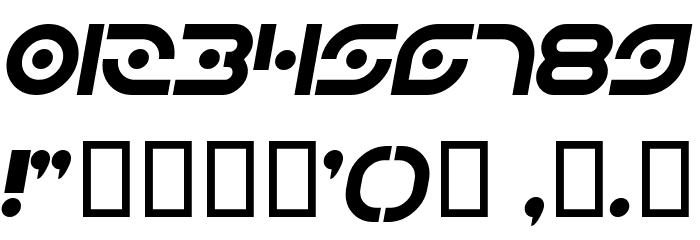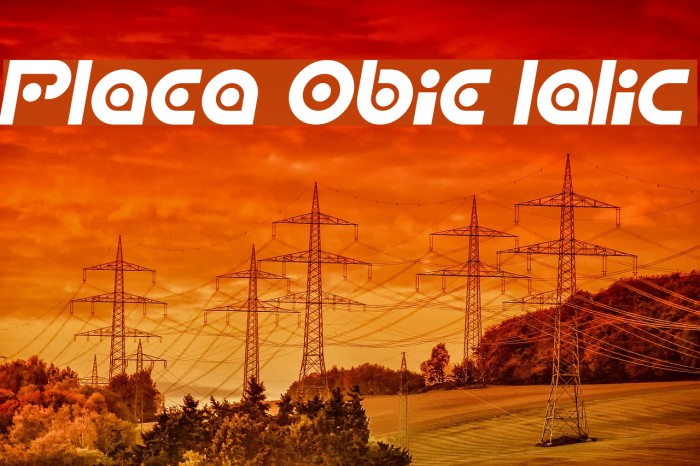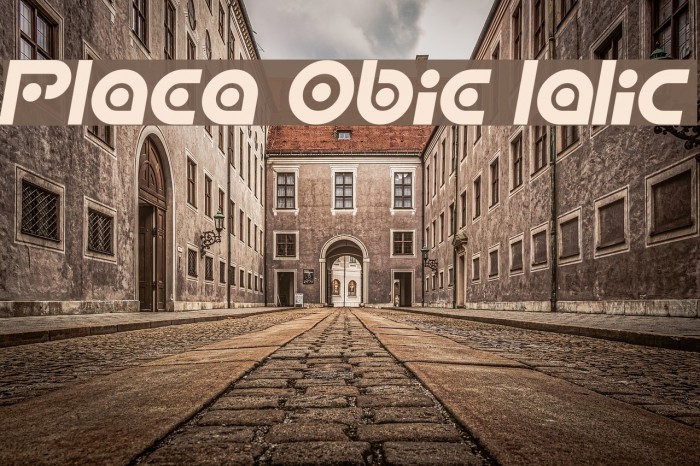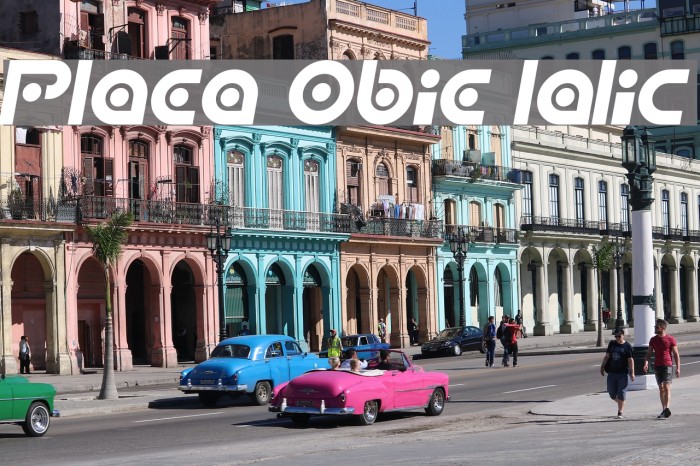
Planetary Orbiter Italic Font
This font features a futuristic and geometric design with a distinct italic slant, giving it a dynamic and forward-moving appearance. The characters are composed of bold, rounded shapes with consistent stroke widths, creating a uniform and cohesive look. The design incorporates unique cutouts and curves, adding a sense of motion and modernity. The uppercase and lowercase letters maintain a similar style, ensuring readability while offering a unique aesthetic. The numerals and special characters follow the same design principles, making them easily recognizable and visually appealing. This font is ideal for projects that require a modern and innovative touch.
A futuristic, geometric italic font with bold, rounded shapes and unique cutouts.
- Proposed Projects: Ideal for sci-fi themed designs, technology branding, video game interfaces, and modern advertising.